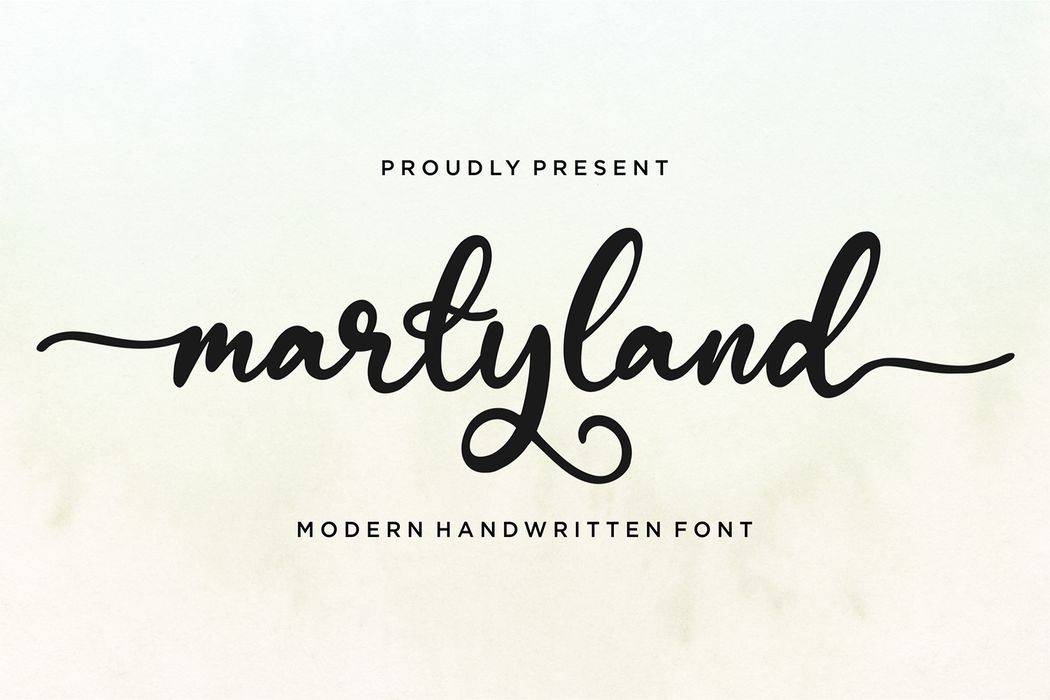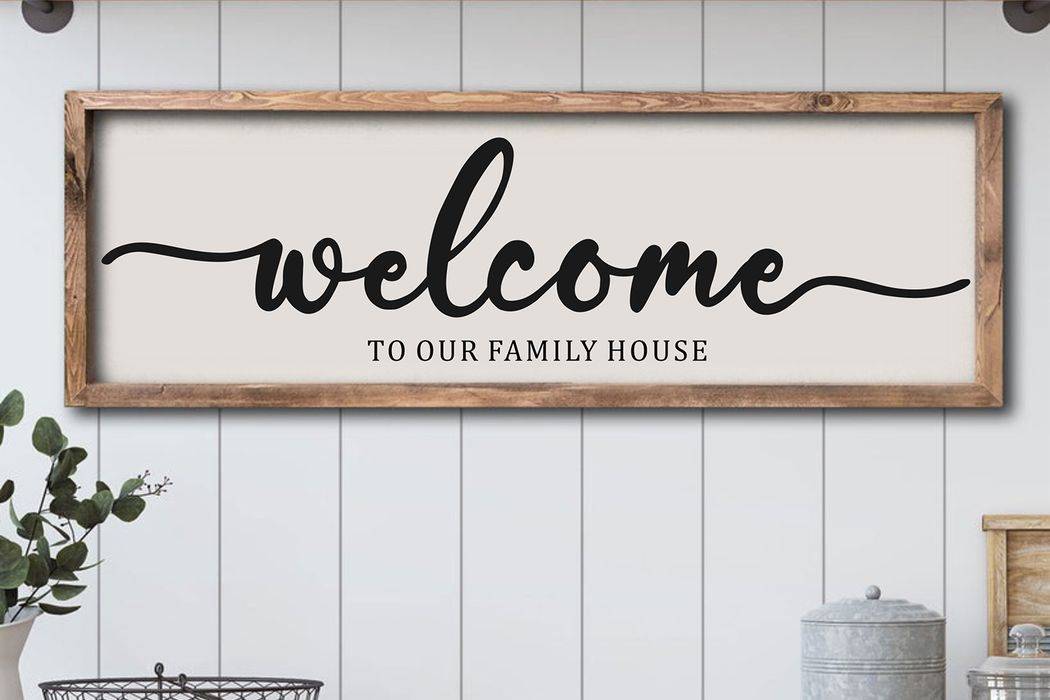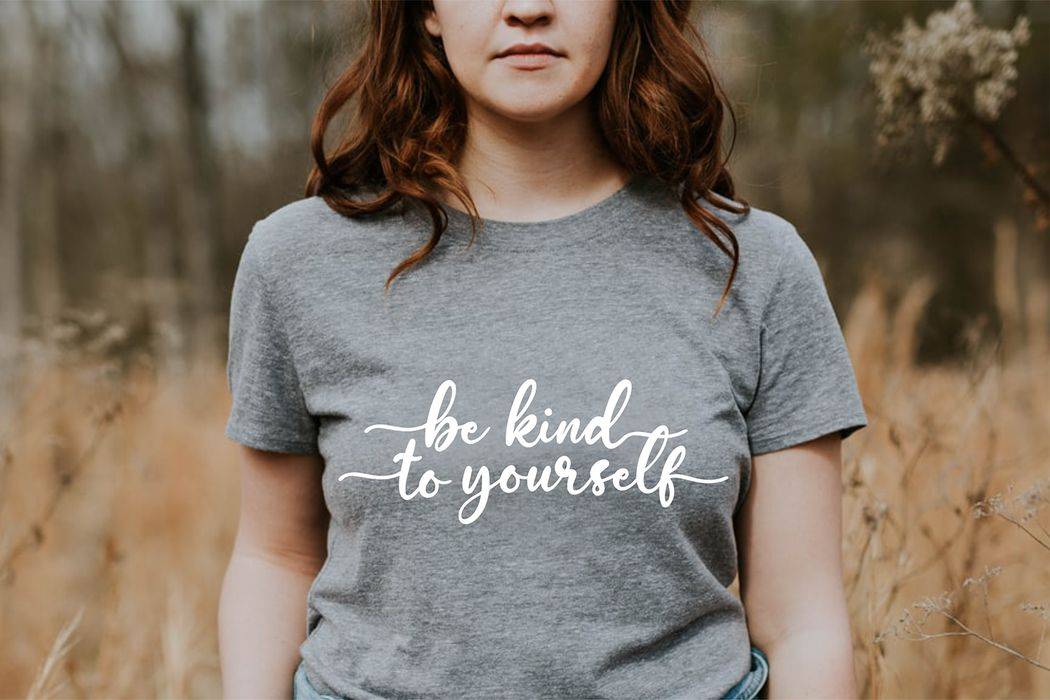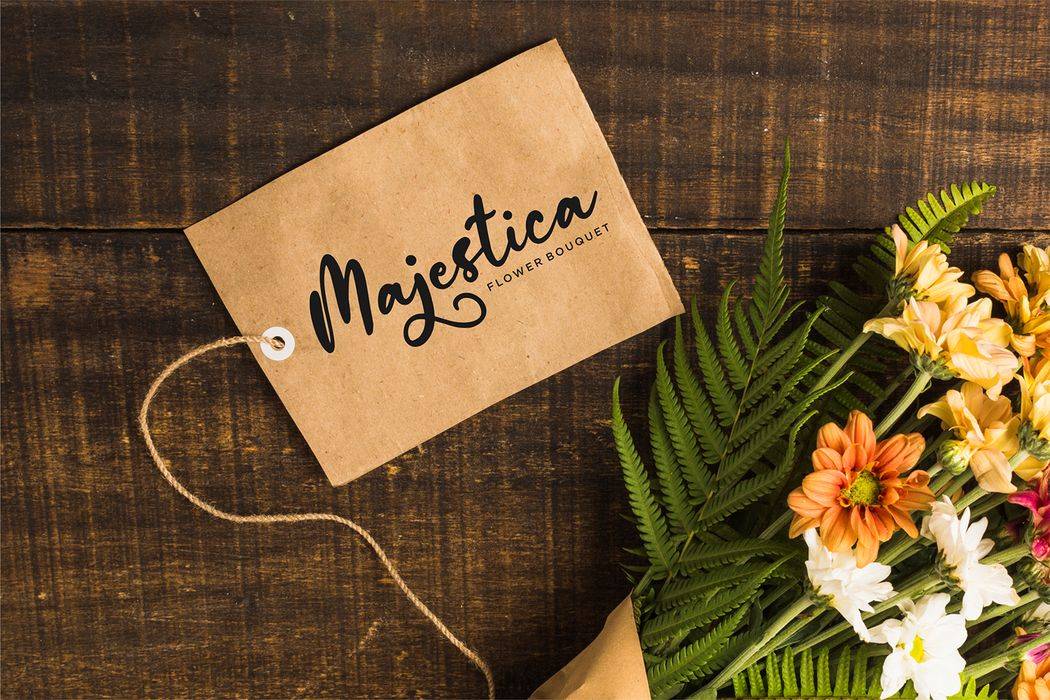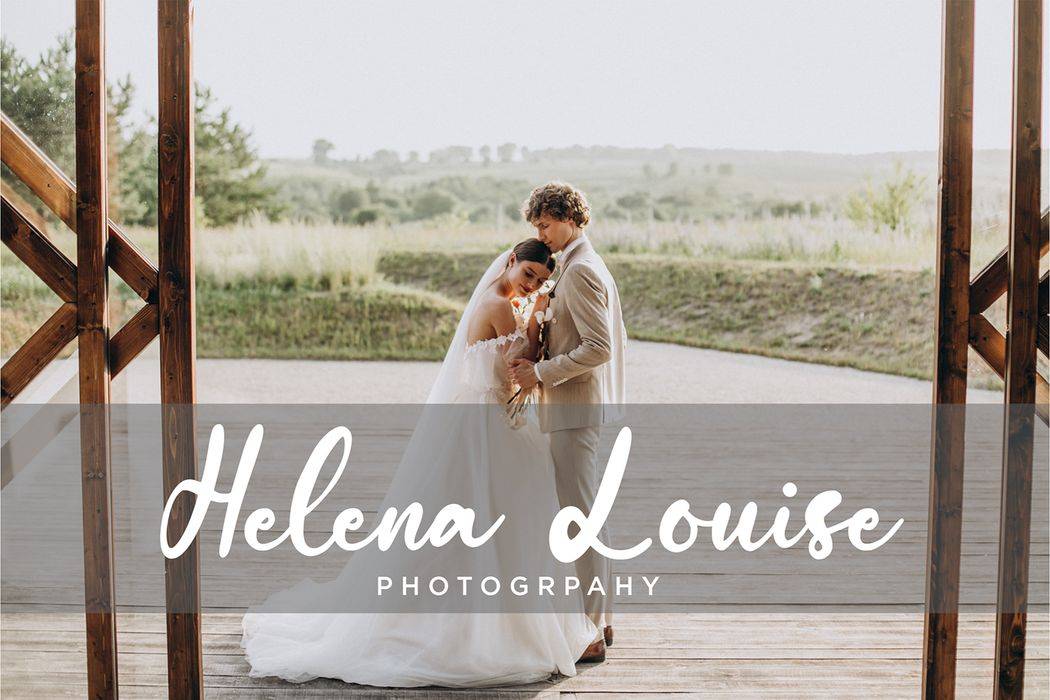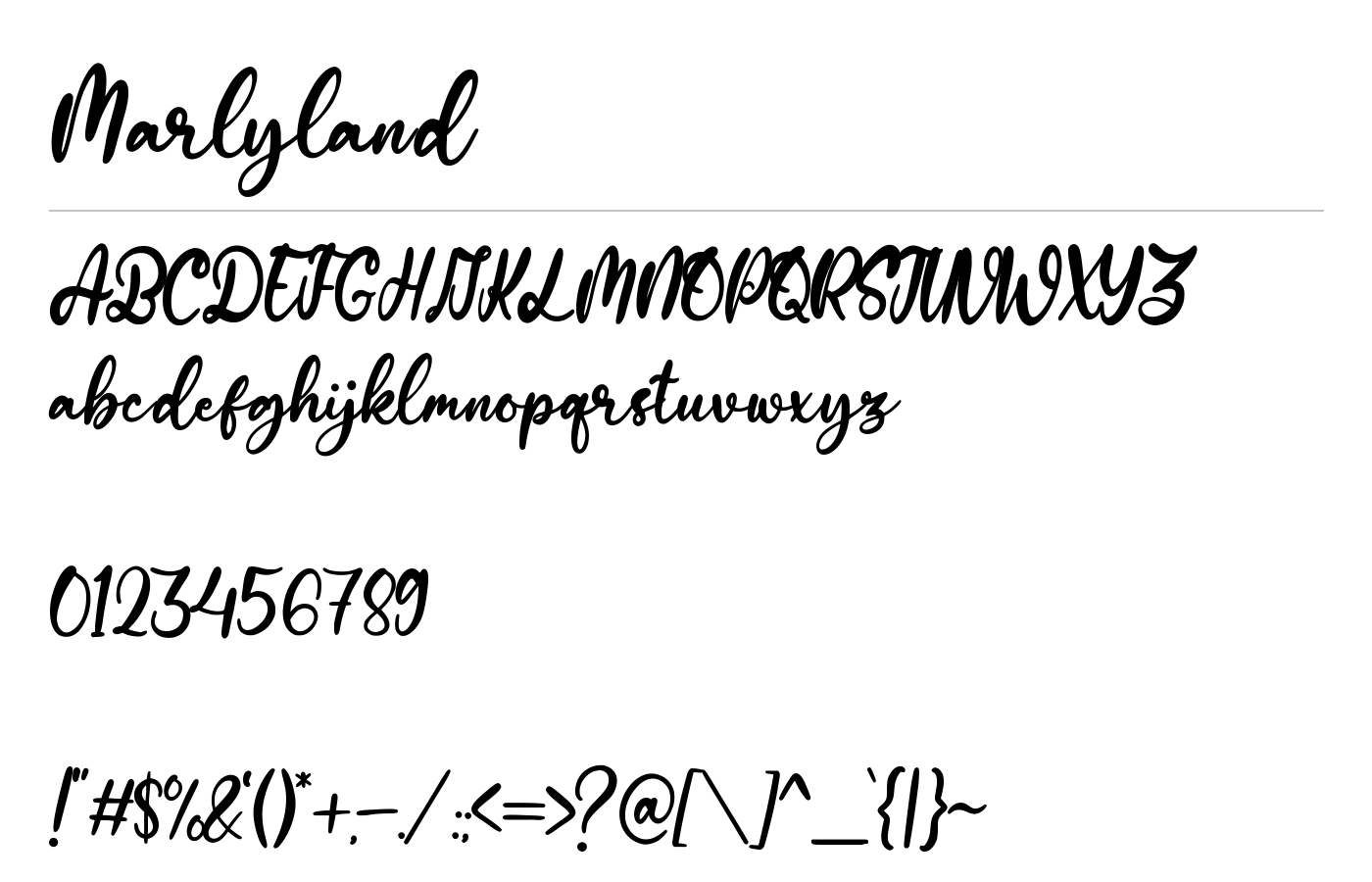
Marlyland is a lively script font featuring smooth, rounded strokes with a casual, hand-drawn feel. Its medium weight and slightly condensed forms create a friendly and elegant appearance, suitable for branding, invitations, and expressive headlines. This font works well where a personal, approachable style is desired, adding charm and personality to any design.
Marlyland Font
About Marlyland Font